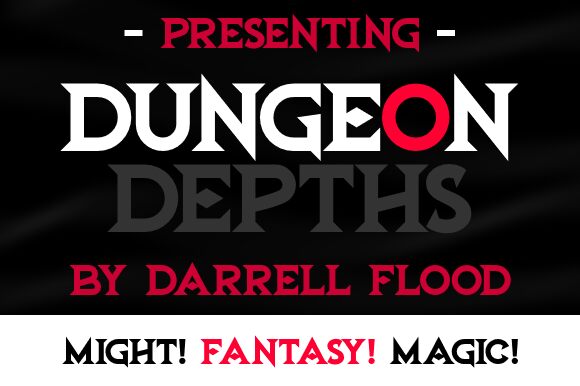
Dungeon Depths Italic
Get ready to add a touch of mystery and intrigue to your creative projects with the Dungeon Depths Italic font. Designed by Hawtpixel, this gothic-inspired typeface is perfect for adding a modern twist to any design. With its semi-expanded width and sharp angular style, Dungeon Depths Italic is ideal for capturing the essence of old school fantasy and adventure. Whether you're working on role playing games, dungeon exploration themes, or general fiction projects, this font will bring an air of authenticity and excitement to your work.
Imagine using Dungeon Depths Italic in your next book cover design, poster creation, or branding project. Its unique characteristics make it stand out from other fonts, giving your work a distinct edge. Embrace the versatility of this font and explore its potential in diverse creative projects - the possibilities are endless!